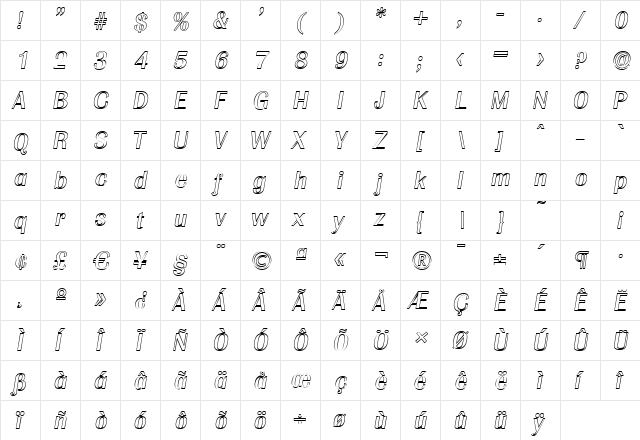
JesseBeckerOutline Italic Font Preview
JesseBeckerOutline Italic
Design Context for JesseBeckerOutline Typeface
JesseBeckerOutline is built around its visual character rather than neutral utility — its distinctive forms are designed to make an impression at display sizes. The dynamic lean of this cut emphasises speed and emphasis in any layout.
Font Pairing: Pair with a clean neutral sans-serif for body copy to let JesseBeckerOutline's character lead without overwhelming the composition.
Pro Tip: Use JesseBeckerOutline exclusively at display sizes — it was designed to be seen, not read at length. Let a neutral companion handle body copy.